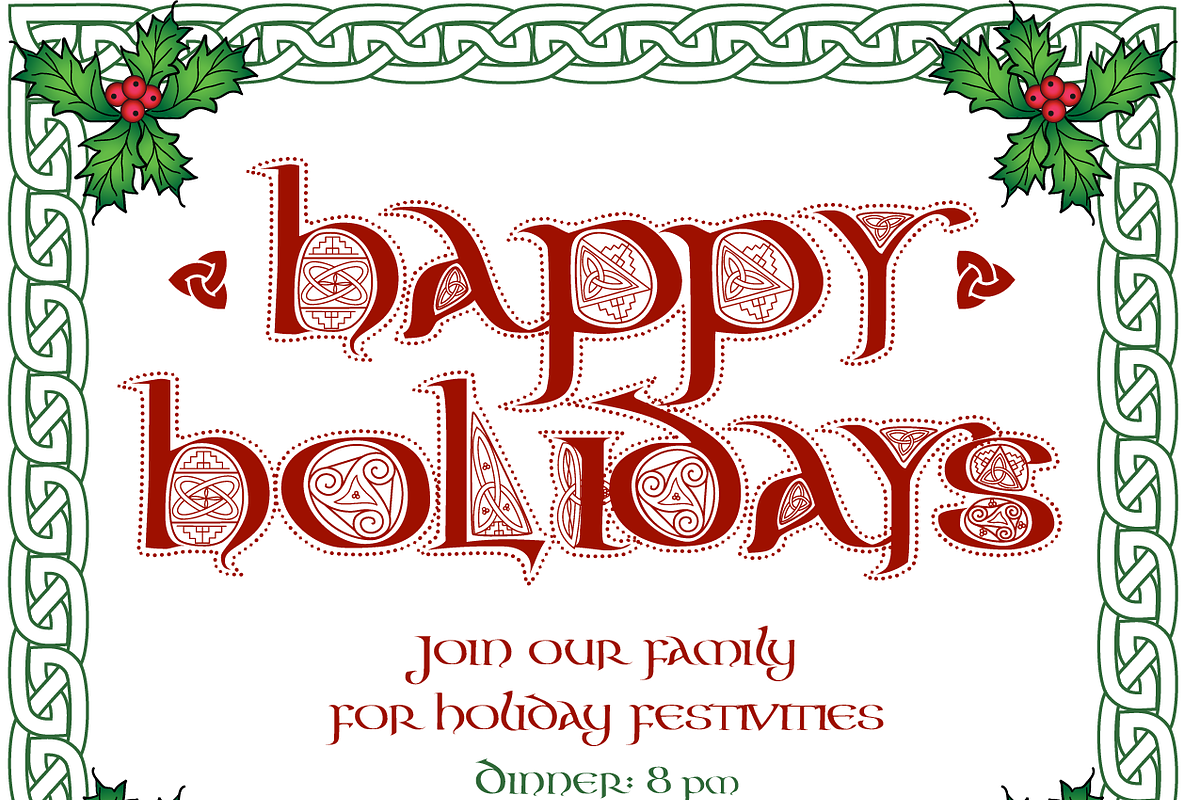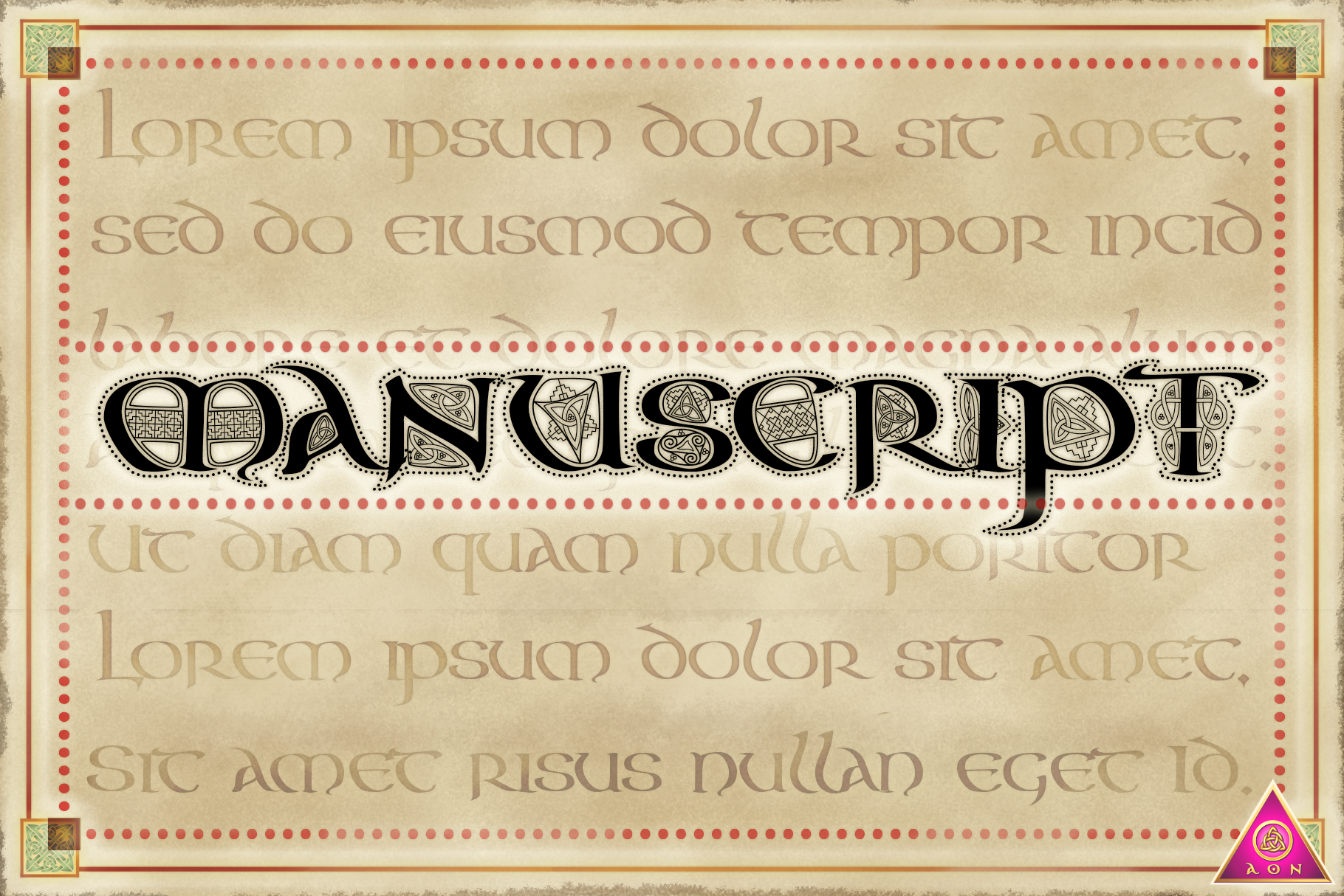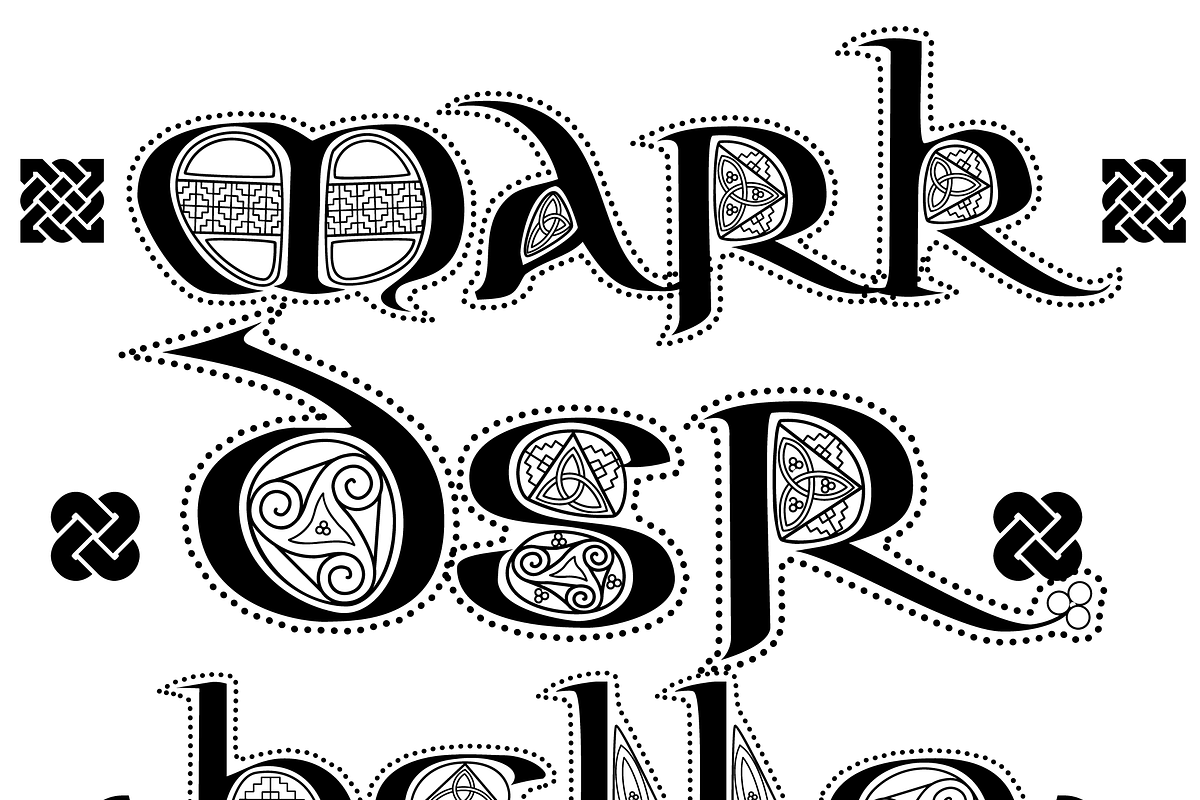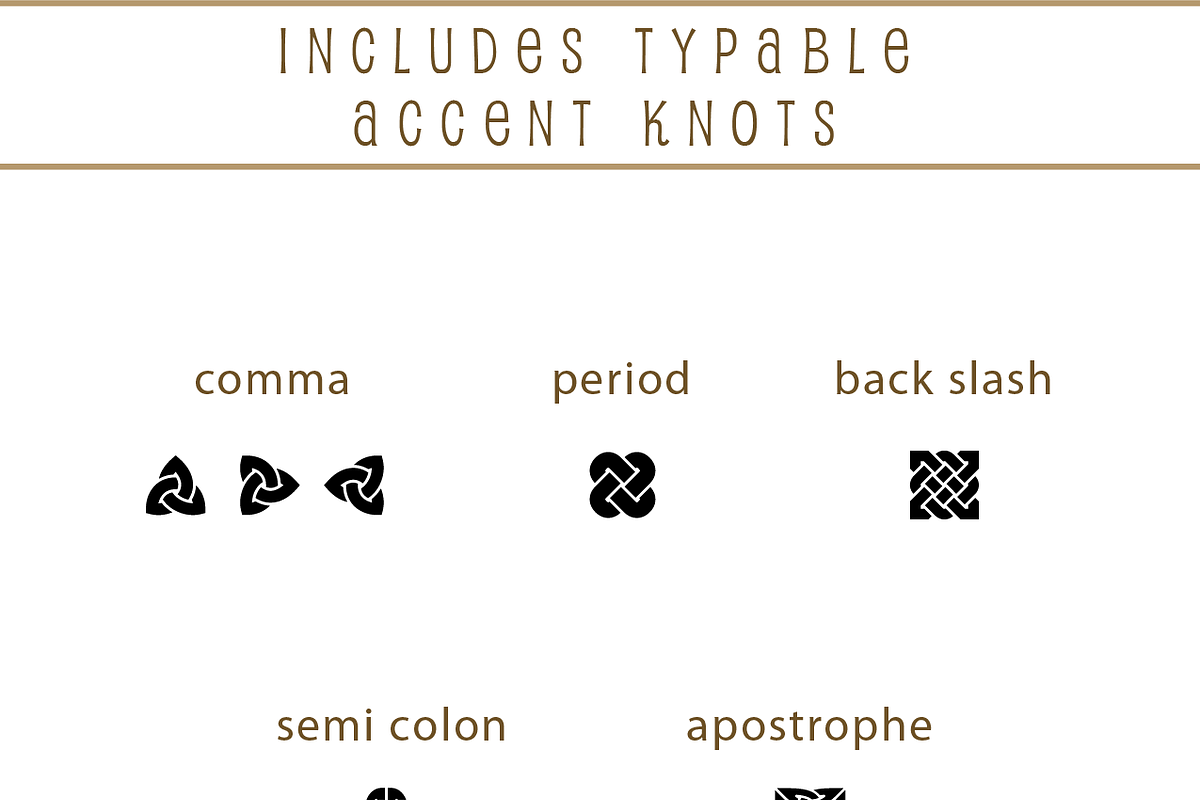
CELTIC Color FONT- AonManuscriptBlk
☘️ A beautiful typable font based on Celtic manuscripts like the Book of Kells or Lindisfarne Gospels! Includes alternate and/or extended letters for A, K, R, T, N and Z, as well as custom ligatures, numbers and common punctuation. I've also included some little Celtic knot dingbats for you to use in your projects.
Each letter is decorated with knotwork, spirals, maze and step patterns in a matching Celtic styled collection. This collection can be used alone or as decorated capital letters with normal uncial calligraphy or Celtic fonts. If you need a matching font without all the decorations, you can get that here: https://creativemarket.com/caribuziak/7027580-CELTIC-FONT-Aon-Celtic
Perfect for creating personal stationary, monograms, invitations, logos, merchandise and craft projects!